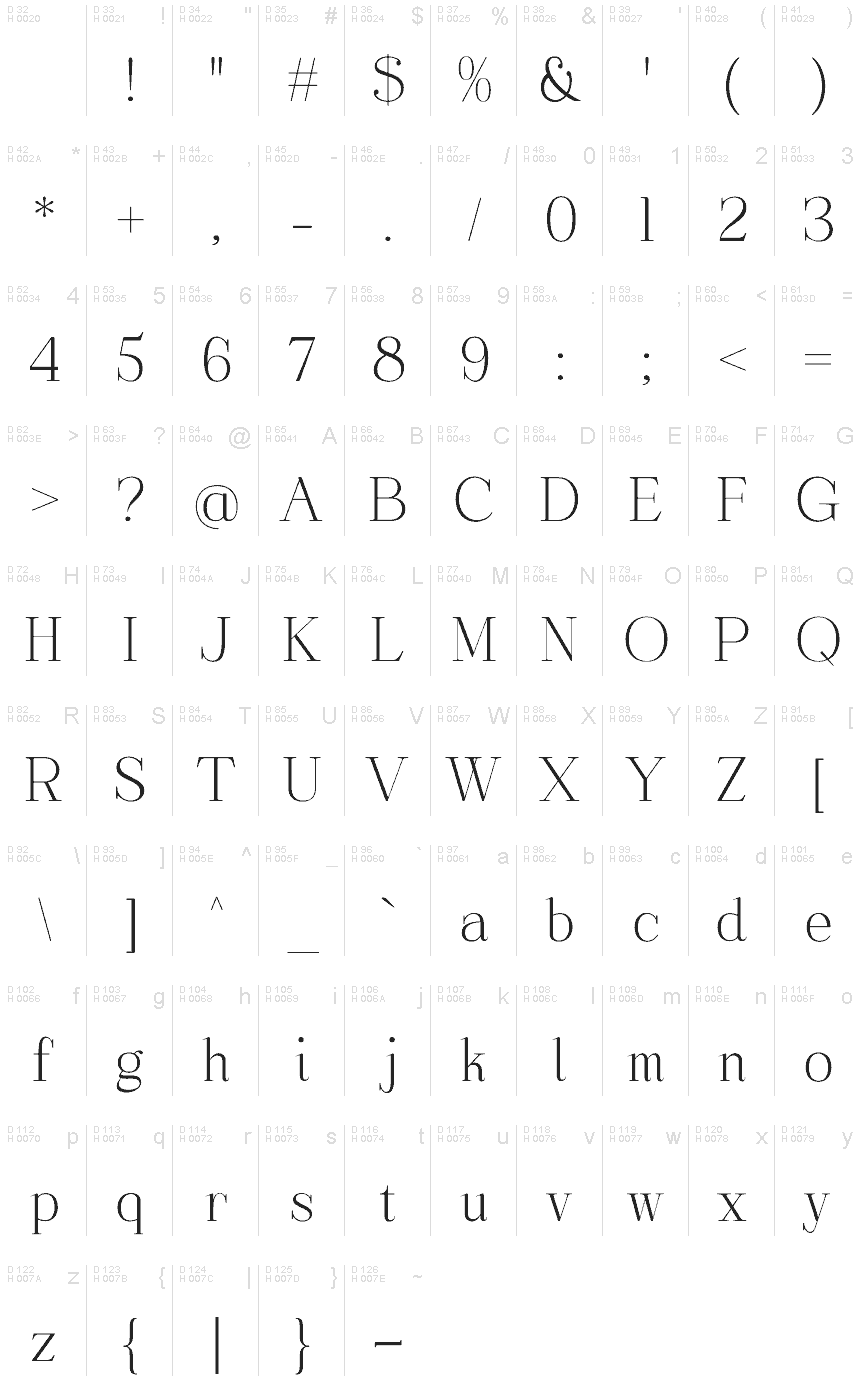
Bhinacle
Bhinacle font, crafted by Storytype Studio, is a light serif typeface that marries modernity with elegance. It exudes a refined and sophisticated look making it an ideal choice for projects that require a touch of class. Its versatility allows it to fit into different design contexts effortlessly.